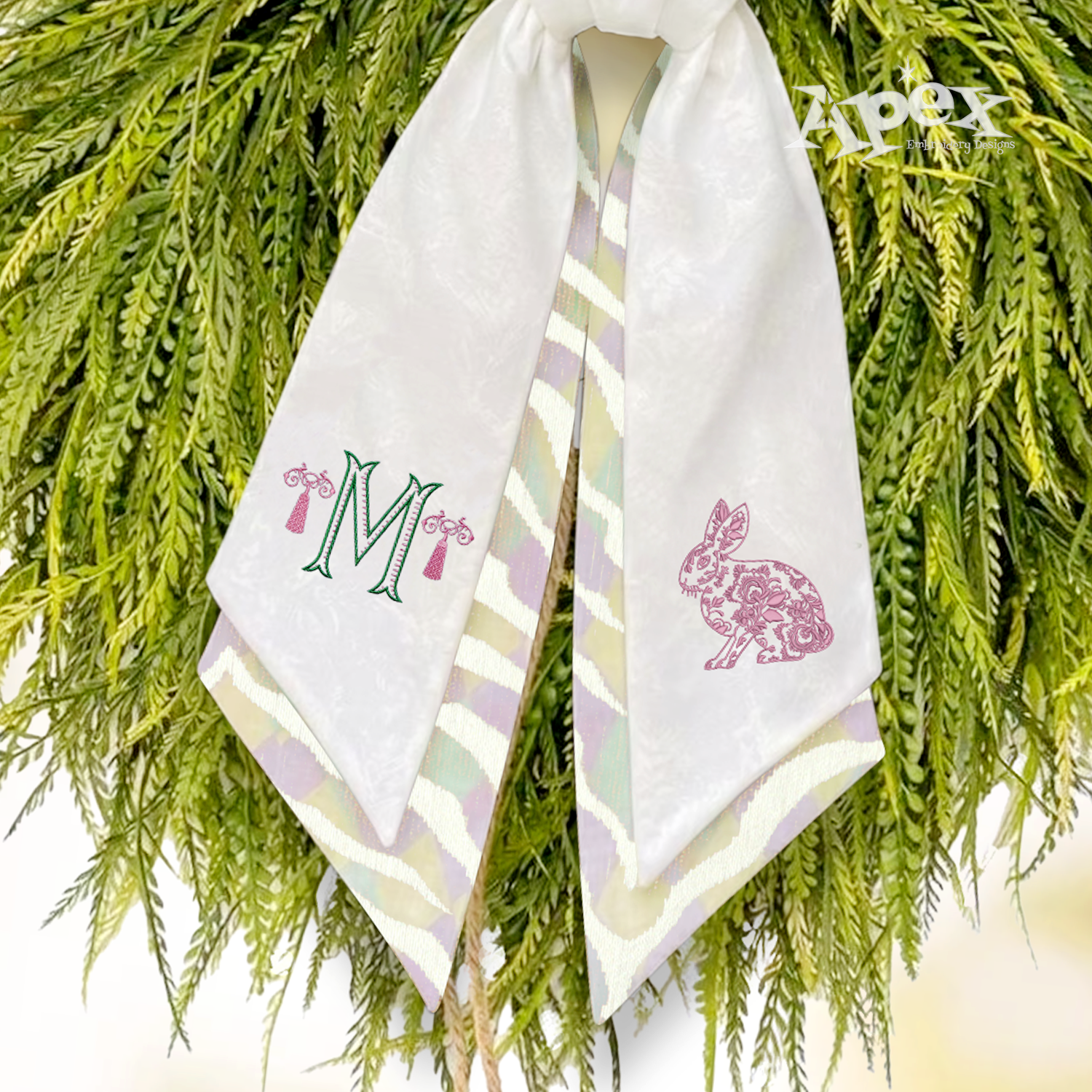
Ribbed Monogram Embroidery Font
Create clean and stylish lettering projects with this Ribbed Monogram Embroidery Font. This ribbed line monogram alphabet is designed for machine embroidery and is perfect for personalized initials, names, monograms, gifts, apparel, home décor, and custom sewing projects.
Font Features
- Ribbed line monogram machine embroidery font
- Alphabet lettering sewing pattern
- Great for initials, names, and custom text
- Clean stitched texture for a polished monogram look